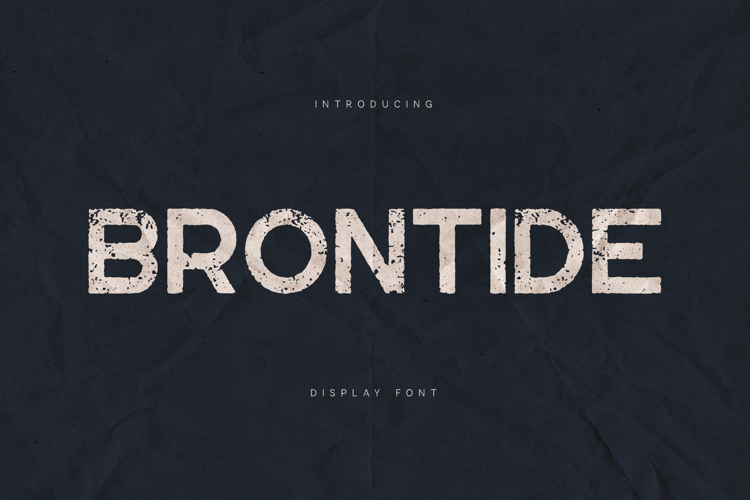
Brontide Distressed Display Sans Font
Brontide is a bold distressed display sans font with a raw, textured character and strong visual presence. Designed for impactful headlines, posters, branding, and editorial layouts, it brings an organic, worn-in feel while remaining highly readable.
The font includes uppercase characters, numerals, punctuation, and extended multilingual support, making it suitable for both creative and professional projects. Its rough texture adds depth and authenticity, perfect for vintage designs, street posters, packaging, album covers, and modern branding with an edge.